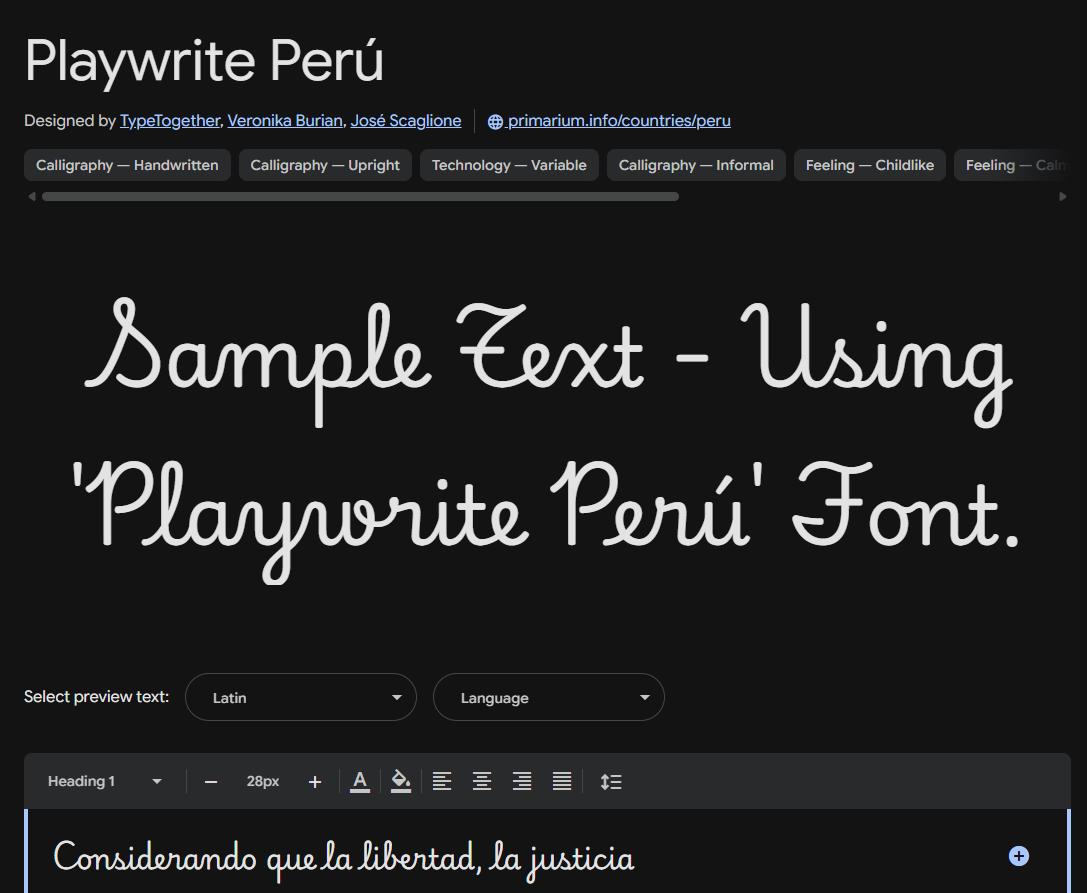
The Playwrite Perú font family, engineered by TypeTogether under the creative direction of Veronika Burian and José Scaglione, functions as a sophisticated digital translation of the Peruvian pedagogical school script, utilizing a single-axis variable architecture to enable fluid interpolation across weight distributions. This typeface synthesizes localized calligraphic ductus with modern typographic engineering, ensuring that the specific joining behaviors and letterforms mandated by regional educational standards are preserved through robust OpenType features and optimized glyph outlines. By leveraging a variable axis, Playwrite Perú offers a scalable solution for literacy materials that maintains stroke integrity and legibility across various rendering environments, representing a specialized intersection of South American instructional traditions and the technical versatility of contemporary variable font technology.
The Playwrite Perú font family emerges as a sophisticated variable font (VF) solution designed to bridge the gap between regional pedagogical standards and modern digital typography through its upright, informal calligraphic structure. Engineered with a focus on Peruvian educational handwriting scripts, this typeface utilizes variable technology to offer seamless interpolation across weight axes, maintaining a calm and happy aesthetic that feels inherently childlike yet technically precise. Its handwritten DNA is characterized by an upright posture and informal stroke modulation, creating a playful visual rhythm that balances a rugged, vintage texture with the legibility required for early literacy development. By integrating these unique stylistic markers-from the nostalgic, vintage feel of manual ink flow to the rugged organicism of its terminal ends-Playwrite Perú provides a semantically rich typographic environment that fosters a calm, playful atmosphere while leveraging cutting-edge variable font architecture to ensure cross-platform performance and accessibility.
Playwrite Perú, meticulously engineered by TypeTogether's Veronika Burian and José Scaglione to adhere to the MINEDU pedagogical handwriting standards, is fundamentally ill-suited for high-frequency algorithmic trading interfaces, medical device labeling, or legal compliance documentation where sub-second legibility is paramount. Its design architecture-centered on continuous-stroke ductus and the variable axis fluidity necessary for primary education literacy-prioritizes the rhythmic flow of a developing hand over the rigid horizontal metrics and high-contrast apertures required for rapid data parsing in safety-critical systems. Consequently, the typeface's idiosyncratic glyph construction and specific regional calligraphic flourishes introduce unnecessary cognitive friction in low-latency UX environments, rendering it an ineffective choice for dense technical manuals or aerospace telemetry where the neutral transparency of a neo-grotesque is required to eliminate parallax errors and ensure maximum character recognition across diverse display resolutions.
Playwrite Perú is ideal for educational materials, children's books, and branding that requires an authentic, hand-drawn aesthetic. The typeface mirrors the specific vertical cursive script taught in Peruvian primary schools, making it an essential tool for localized pedagogic digital resources.
Yes, the Playwrite Perú family is distributed as a variable font, allowing designers to fine-tune thickness along a continuous weight axis. This implementation utilizes the wght OpenType variations table to ensure consistent rendering across high-DPI displays while maintaining a minimal file size footprint.
The connected nature of the script can create visual density that may challenge readers when used in extensive blocks of body copy. Analyzing its x-height and stroke modulation reveals that legibility is best maintained at a minimum of 16px to prevent the collision of complex glyph joins.
Clean, geometric sans-serifs like Montserrat or Roboto provide a stable visual anchor that balances the fluid movement of the script. Selecting a companion font with a neutral character height ensures that the distinctive ascender-descender ratio of the Playwrite series remains the primary focal point of the typographic hierarchy.
While charming for splash screens or gamified elements, the font is generally too decorative for high-frequency interactive components like buttons or navigation menus. Testing indicates that the intricate exit strokes of the glyphs can suffer from aliasing on lower-resolution screens, potentially impacting the WCAG contrast and clarity requirements.
Playwrite Perú is specifically designed to support the Latin-1 Supplement, including the essential "ñ" and accented vowels used in Spanish. The character map is technically optimized for the Peru-specific educational curriculum, ensuring that the glyph shapes match the standard "m" and "r" forms taught to students in the region.
Designers should implement a generous line height, typically 1.5 or greater, to prevent the tall ascenders from overlapping with the descenders of the line above. Adjusting the line-height CSS property to a unitless value of 1.6 accounts for the exaggerated vertical metrics inherent in traditional primary school handwriting models.
The font excels in high-resolution print contexts, where its smooth outlines and organic transitions can be fully appreciated on paper. Because the vectors are defined with high precision, the font maintains its structural integrity even when scaled for large-format lithographic printing or vinyl plotting.
Playwrite Perú lacks the high-contrast stroke terminals and simplified letterforms necessary for quick identification in complex wayfinding systems. Human factors engineering suggests that decorative scripts increase cognitive load, making this font unsuitable for ADA-compliant signage where glanceability is a critical metric.
The font evokes a sense of familiarity and encouragement, bridging the gap between physical handwriting practice and digital learning environments. The typeface utilizes specific ligatures and contextual alternates that simulate the kinetic flow of a pen, fostering a psychological connection to the motor skills involved in early literacy development.